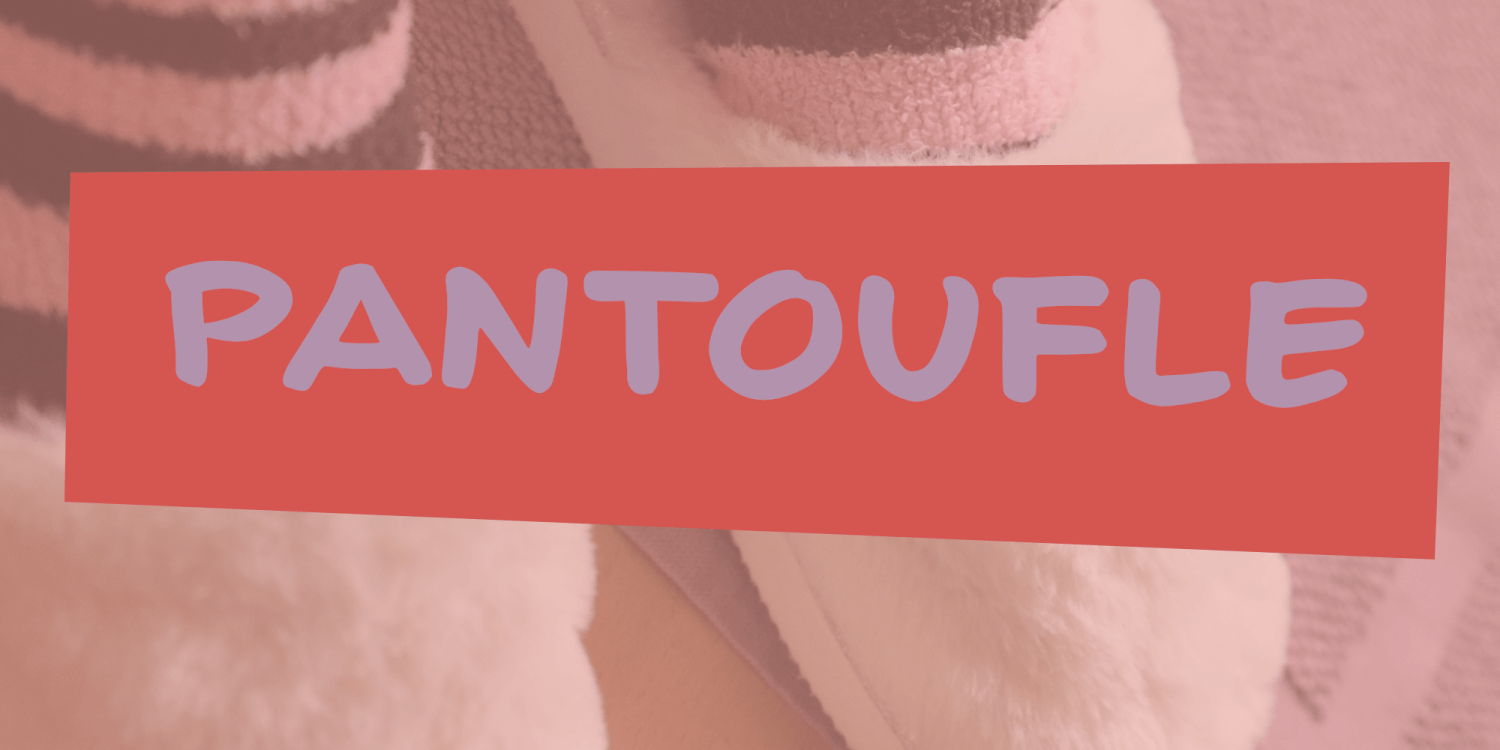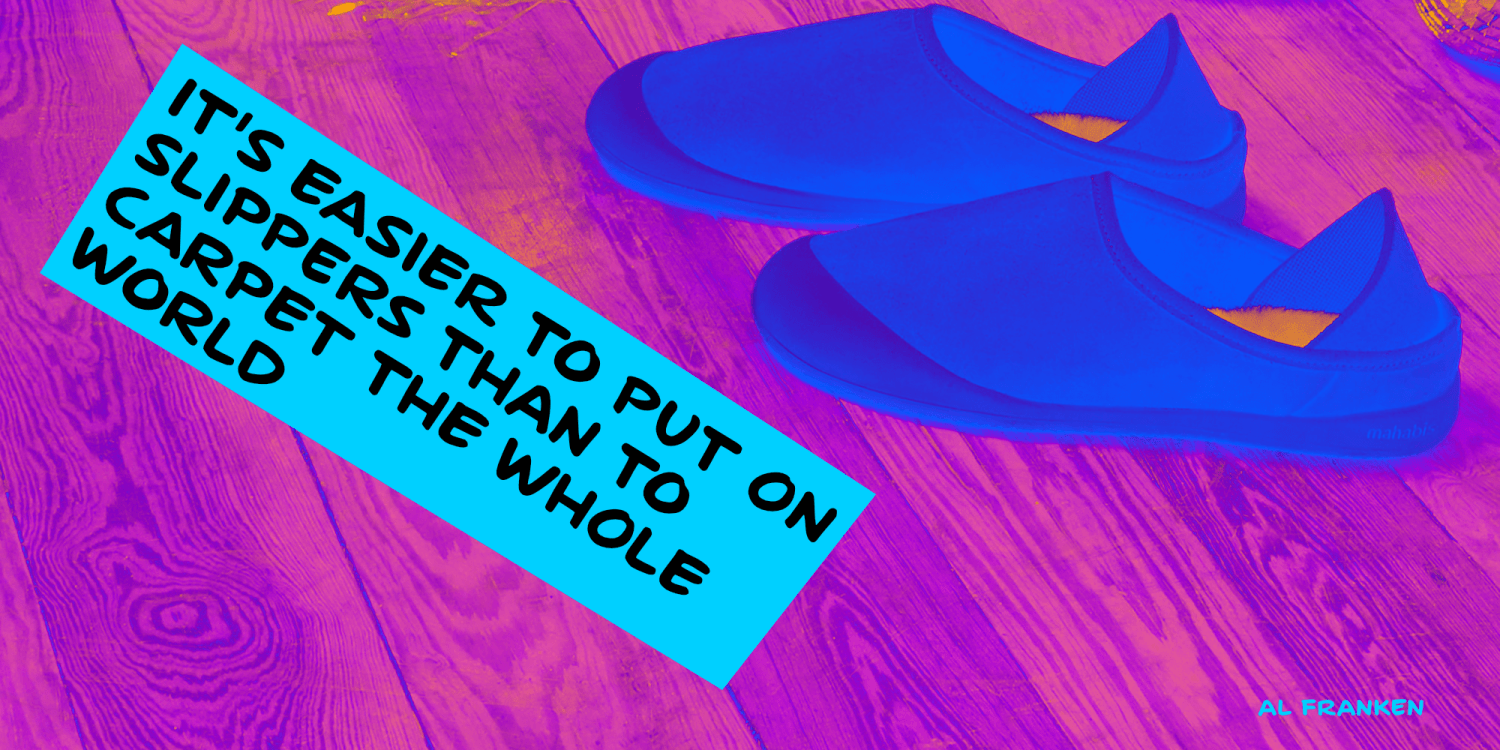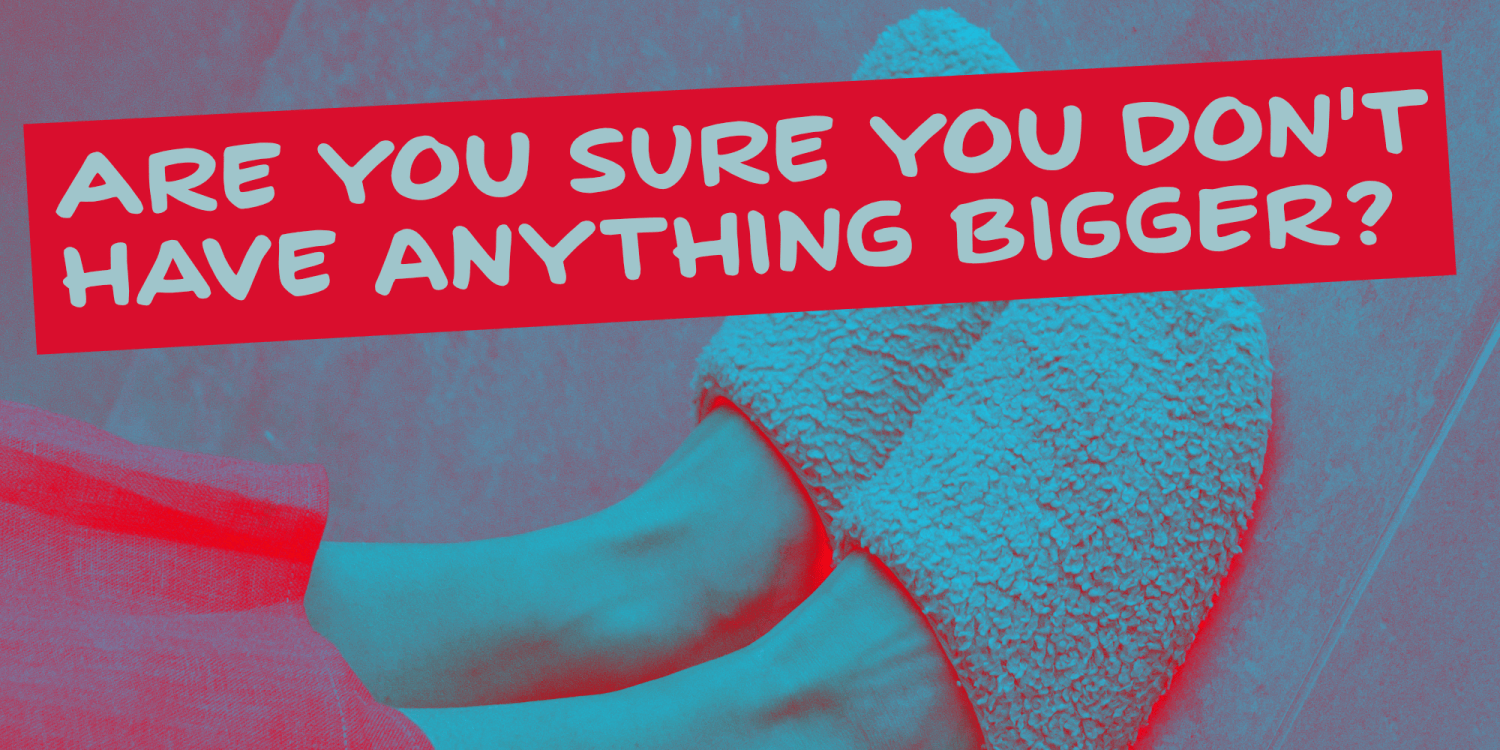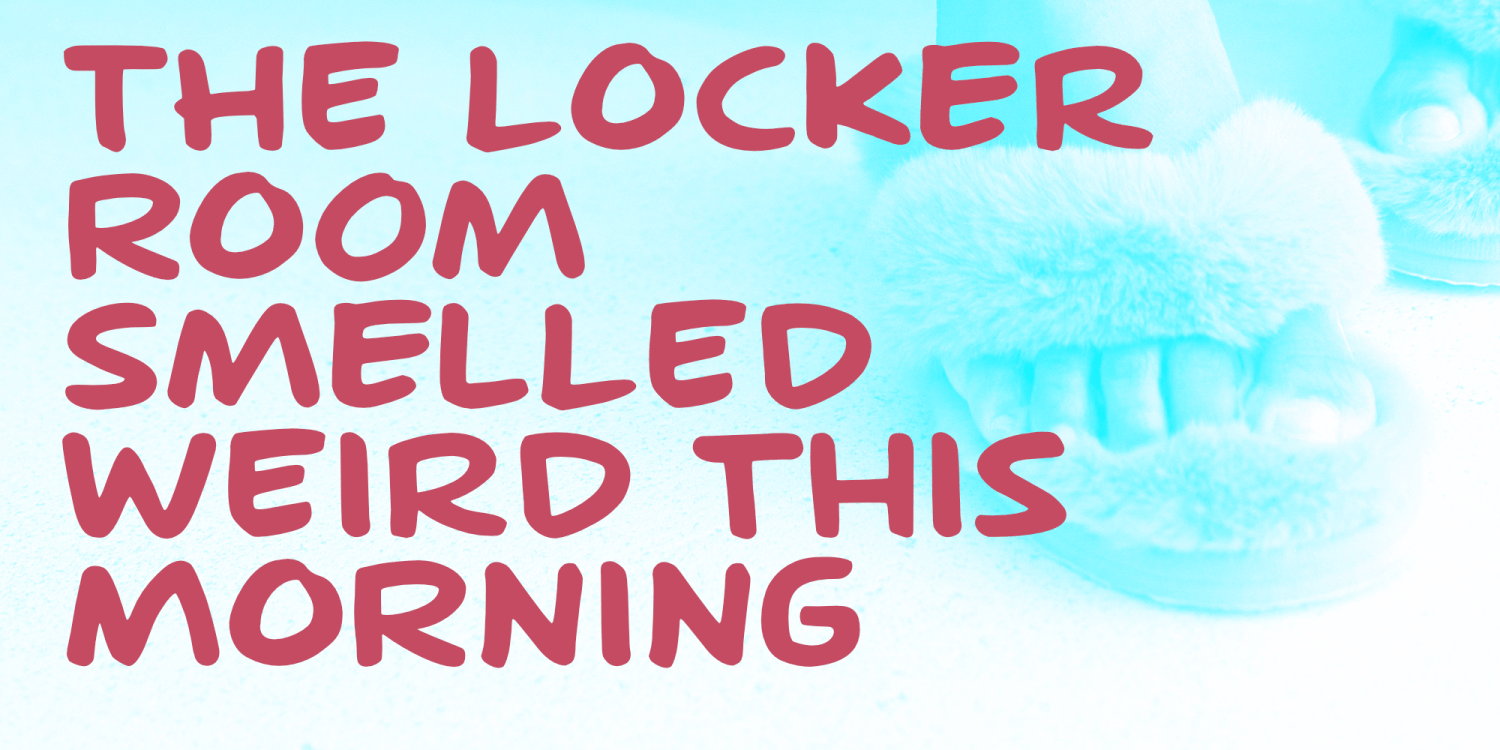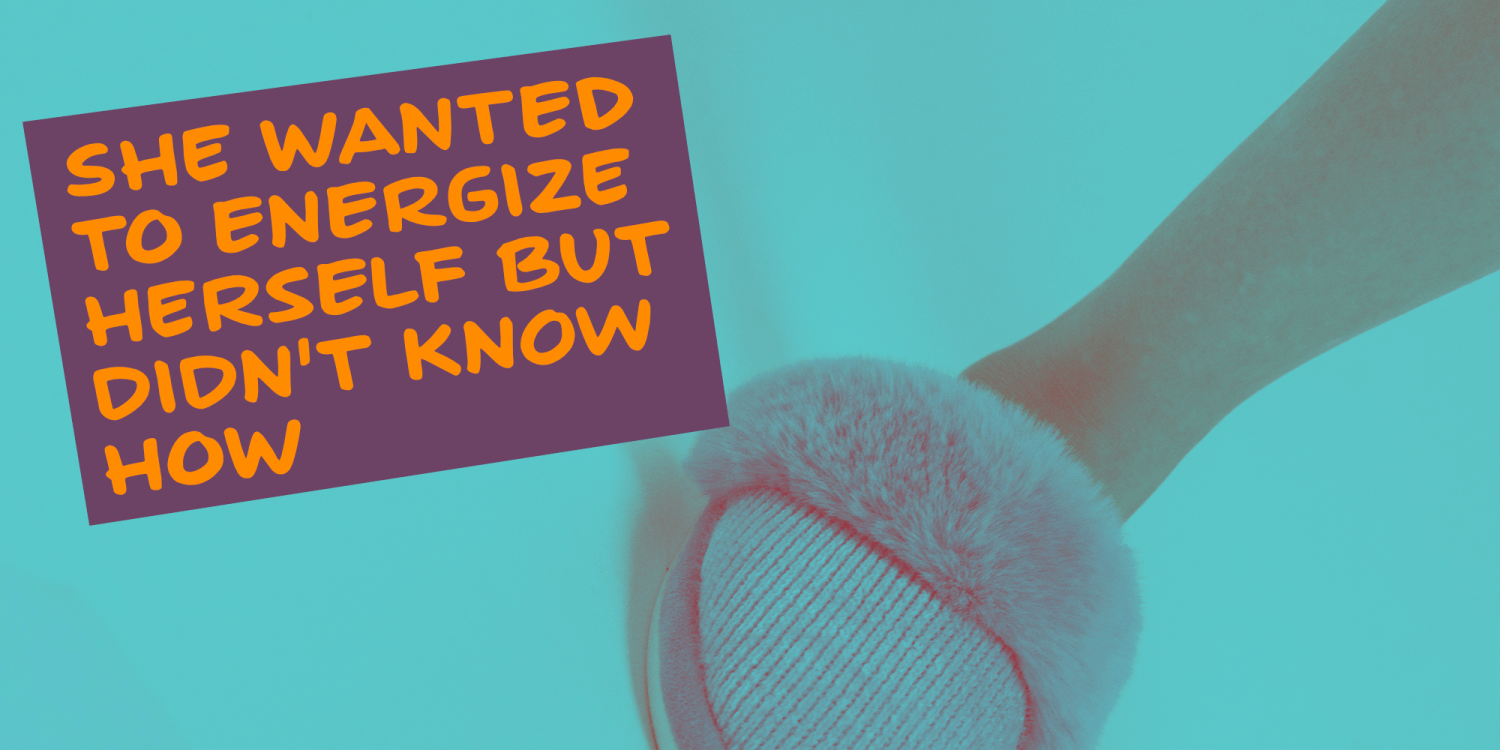
Pantoufle
Pantoufle is French for slipper. Not the flipflop variety (or thongs if you’re from Australia), but the one you wear indoors when it’s cold. I have some too; Spanish ones, made from recycled PET bottles. Here in Holland, we call them ‘Pantoffels’ and you don’t have to be a language expert to see the resemblance between the French and the Dutch word. That is because the French are probably more savvy when it comes to keeping your feet warm and the Dutch just borrowed the word, pronunciation and all!
Pantoufle is a font I made with a big fat marker pen. My kids had used it to decorate some gifts for Sinterklaas (if you want to know what Sinterklaas is, look it up).
Pantoufle comes with extensive language support and a full set of alternates for the lower case glyphs.